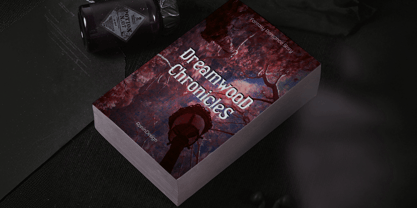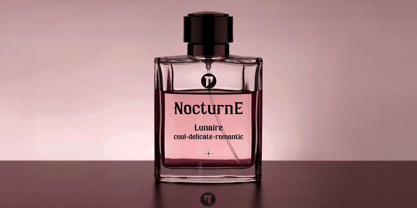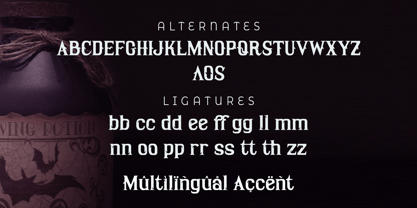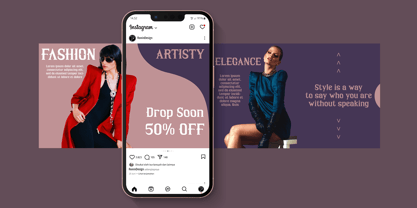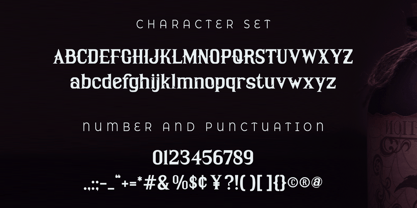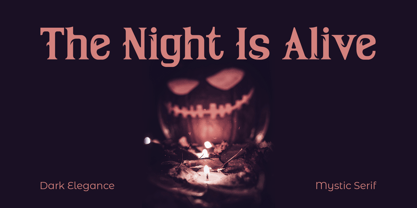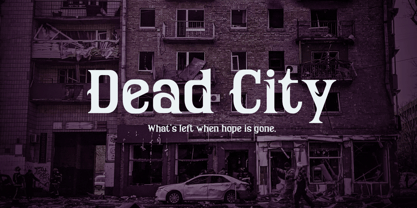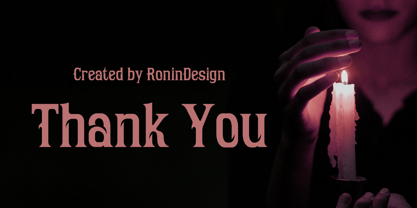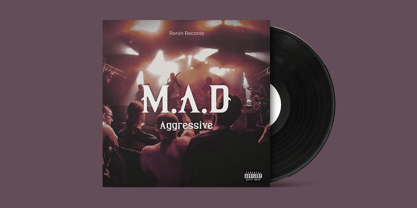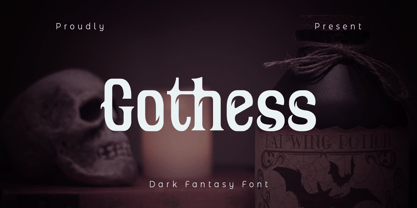
Gothess
by Ronin Design
The Gothess Font Family was designed by RoninDesign and published by Ronin Design. Gothess contains 1 styles. More about this family
Gothlys is a dark fantasy font that blends dark gothic charm with refined fantasy elegance. Inspired by experimental design, this font captures attention with its sharp angles, mystical forms, and stylized curves.
With its unique letterforms and dramatic personality, Gothlys is ideal for projects that need a strong visual impact, fantasy book covers, fashion branding, perfume packaging, metal band merch, mystical logos, or dramatic social media visuals. The lowercase characters carry a more dynamic, slightly condensed form, offering subtle rhythm and variety when paired with the uppercase.
Designers: RoninDesign
Foundry: Ronin Design